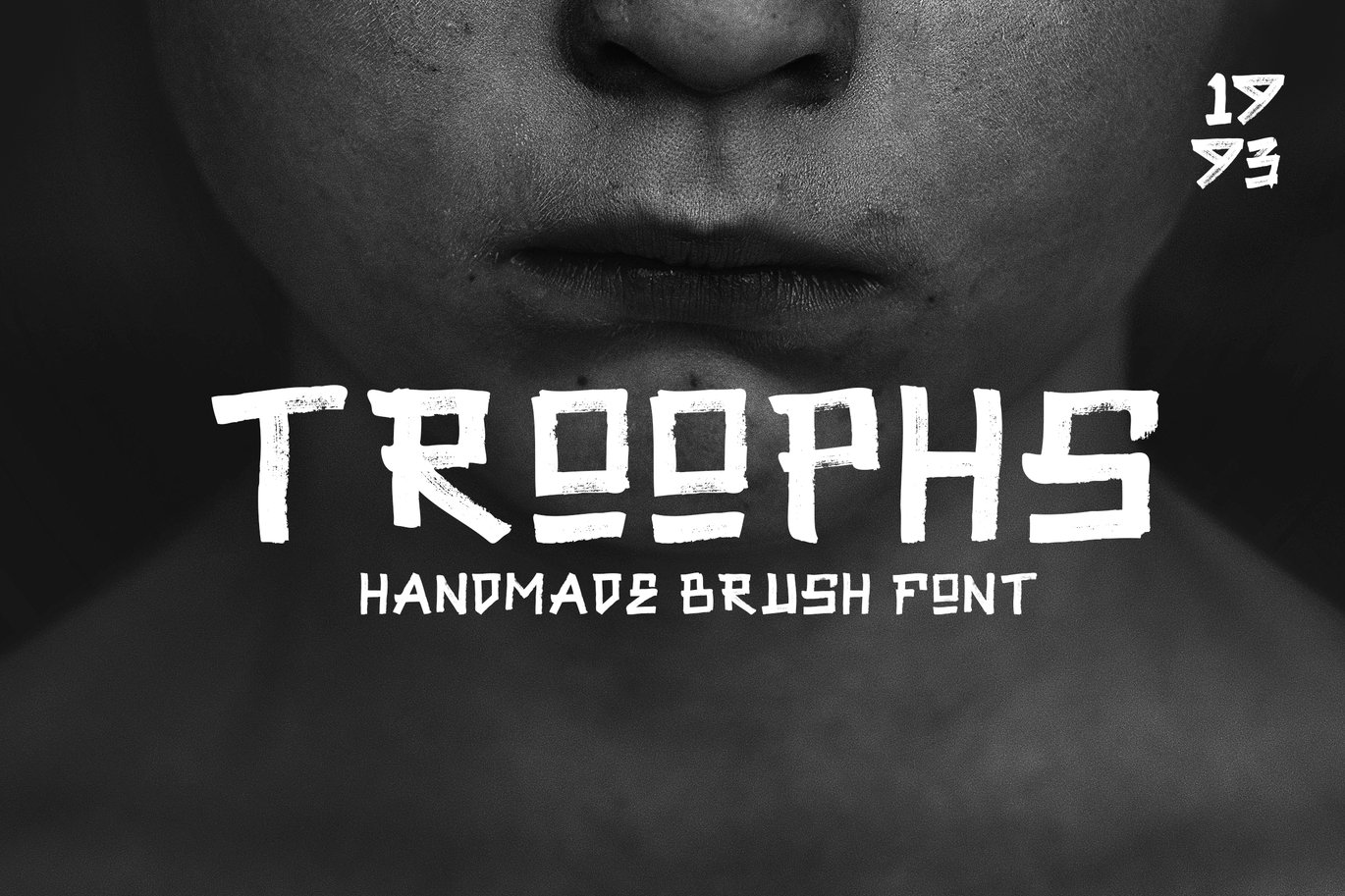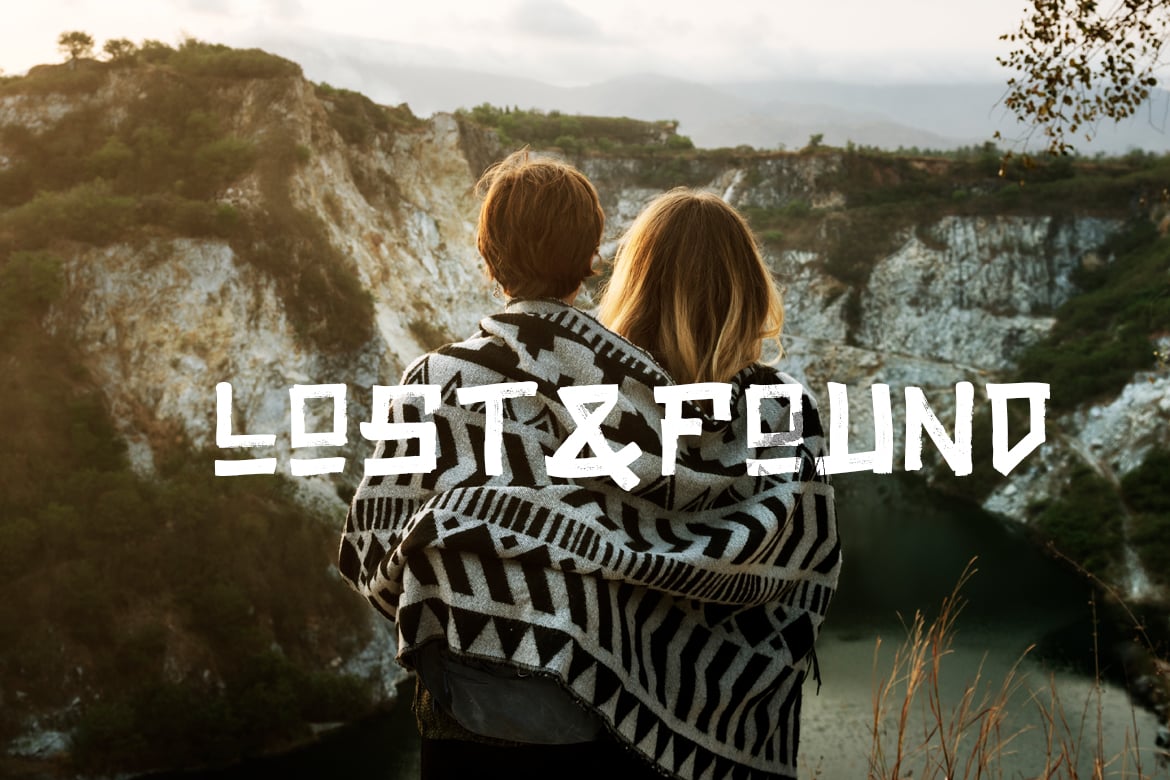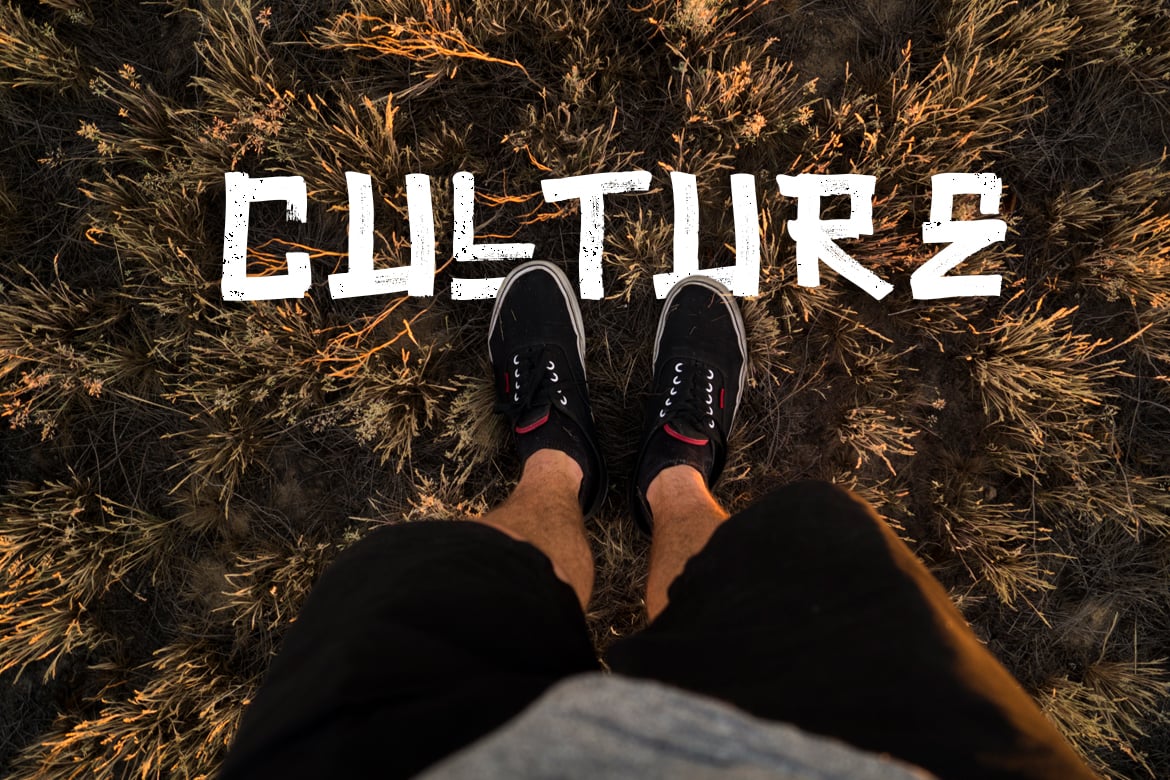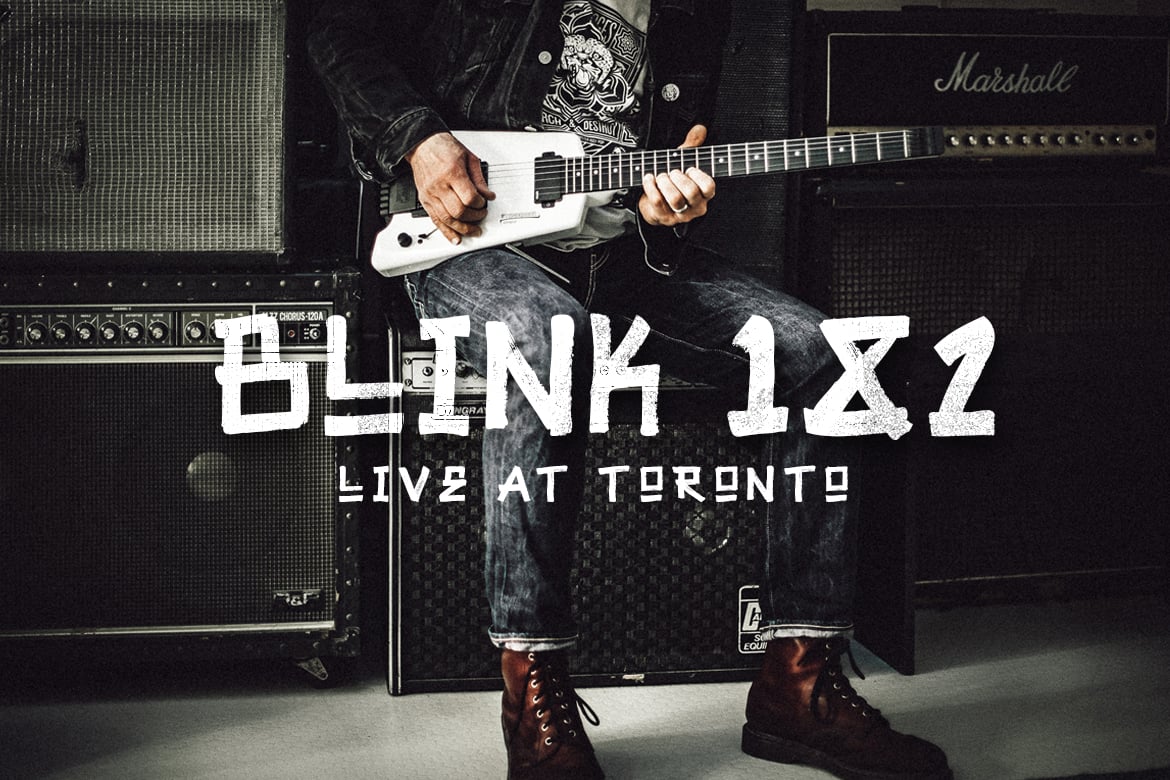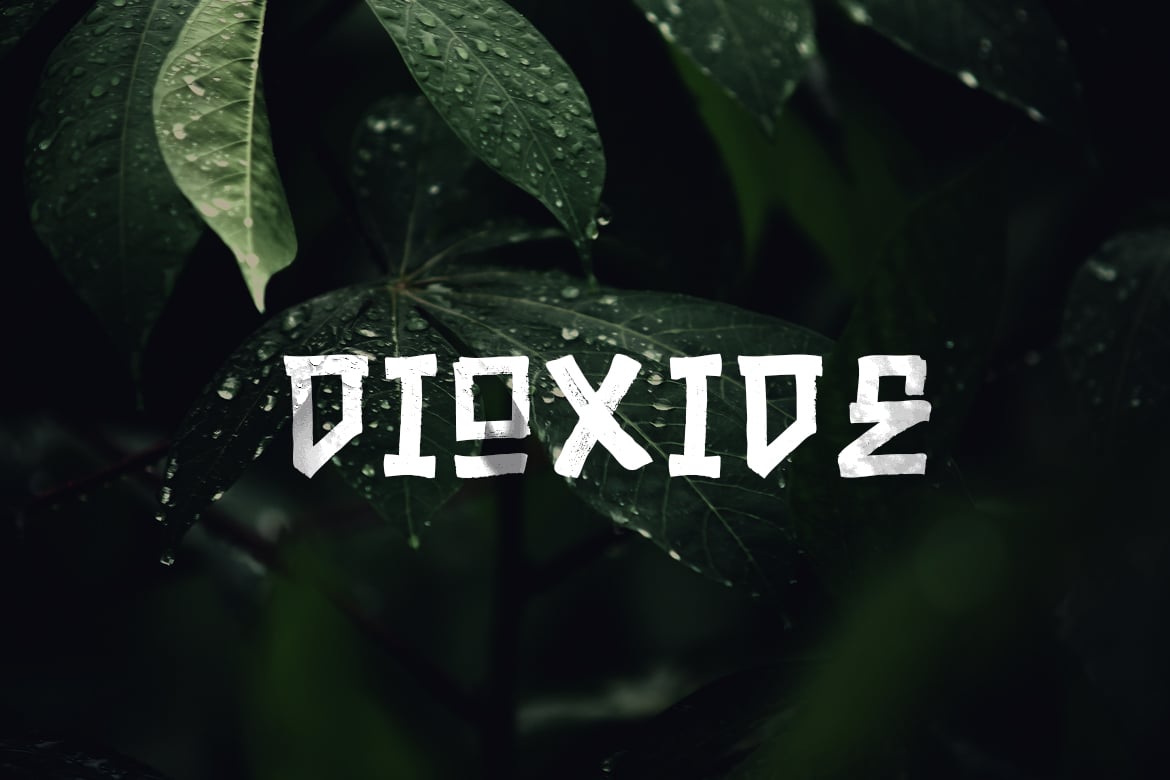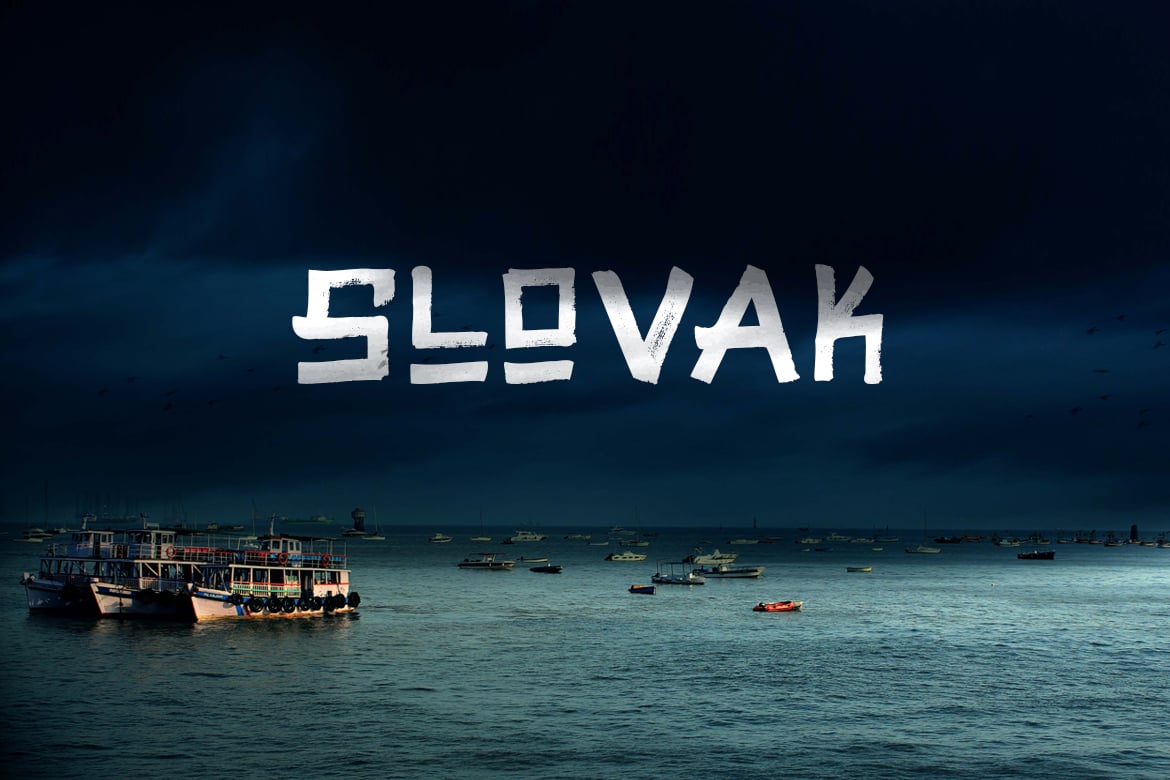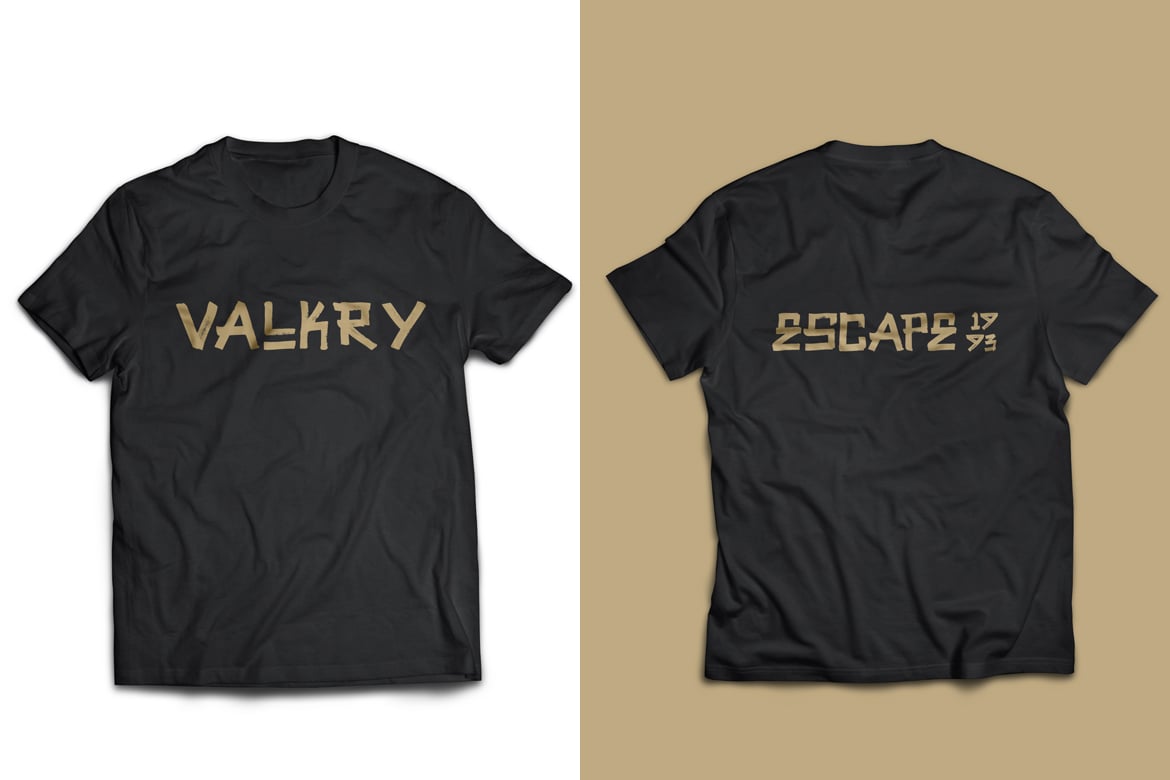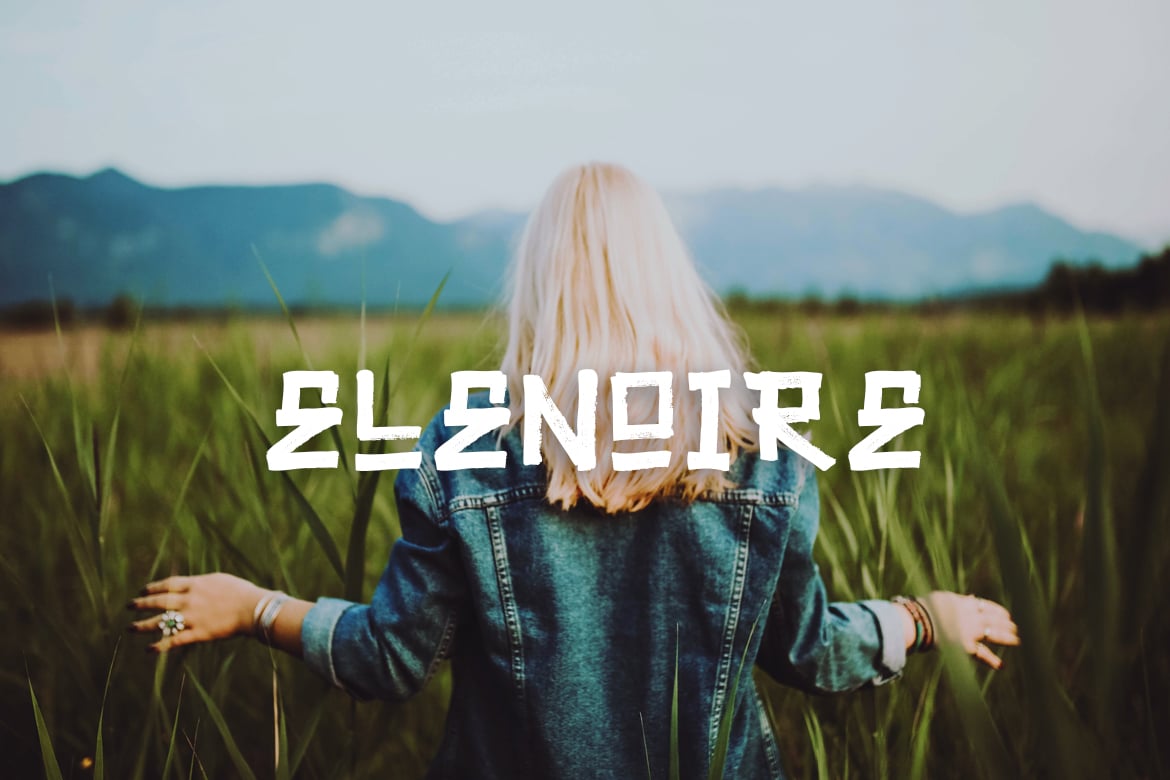
Troophs – Brush Fonts
We Provide You one of the best Hand Written Script. Best match for logos, header, Titles, Prints & other Creative process possibilities.
Create a Extraordinary Typography / lettering results by using Troophs – Brush Fonts